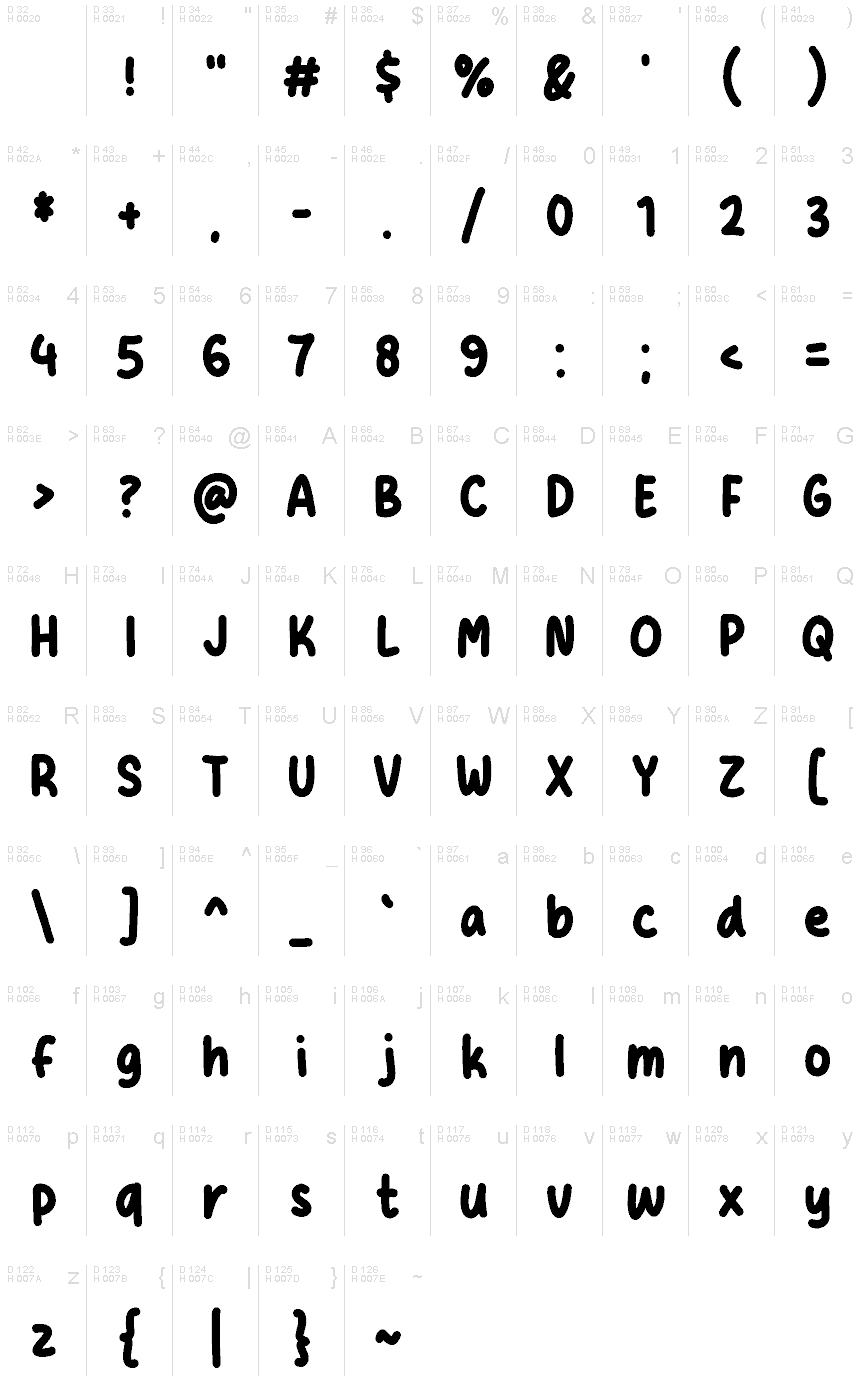
Ultra Cream
Ultra Cream font by MJType is a handwritten display font with a casual, rounded structure. This friendly and approachable typeface combines modern features with retro vibes for a unique appearance that’s fun and comfortable to the eye. Ultra Cream has excellent readability despite its playful nature which loan itself well for displaying long paragraph texts in addition to headers.
Ultra Cream is freely available for use in different creative projects such as book covers, printed cards, packaging design, logo design, posters and flyers, branding projects and visual identities. Download to initiate your experience with this aesthetic that was built on consistent angles throughout its letters.